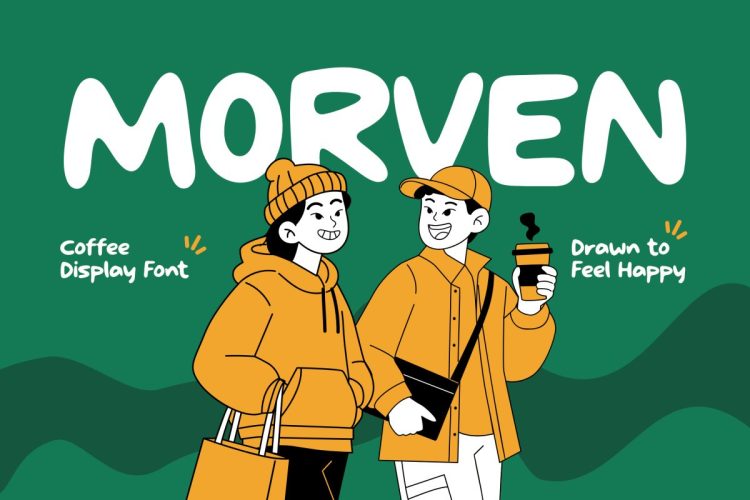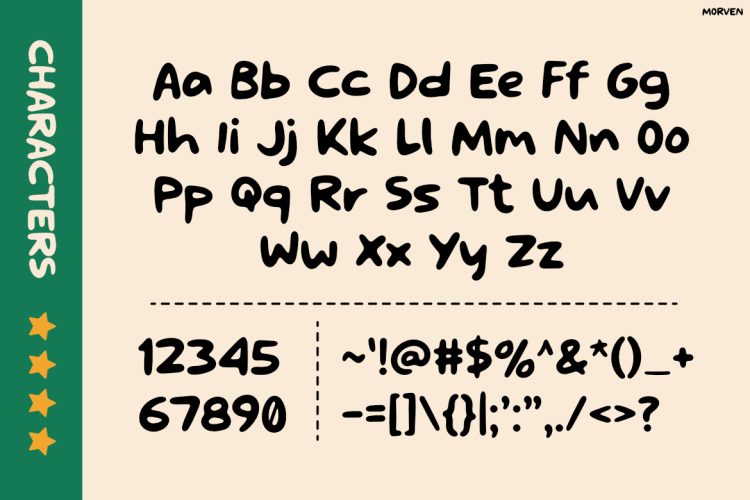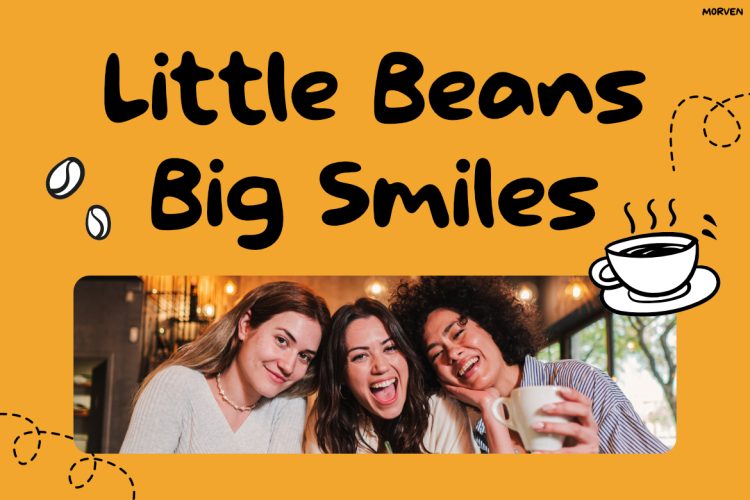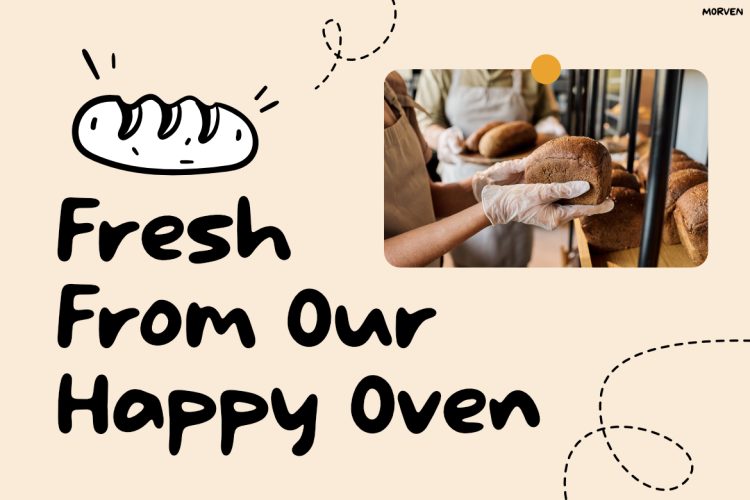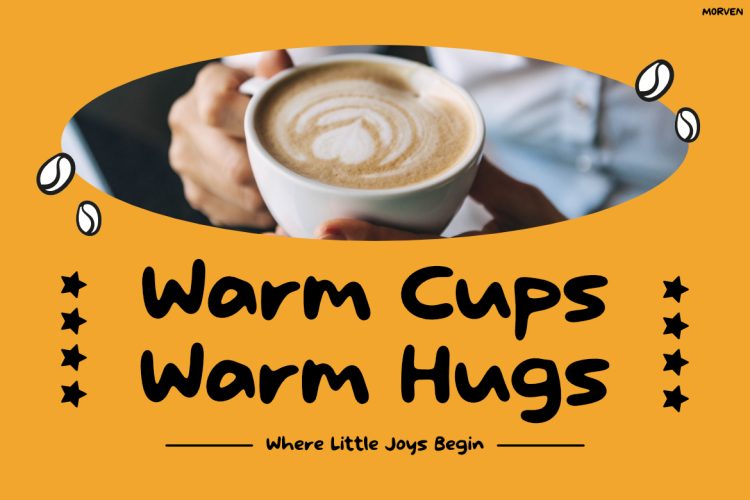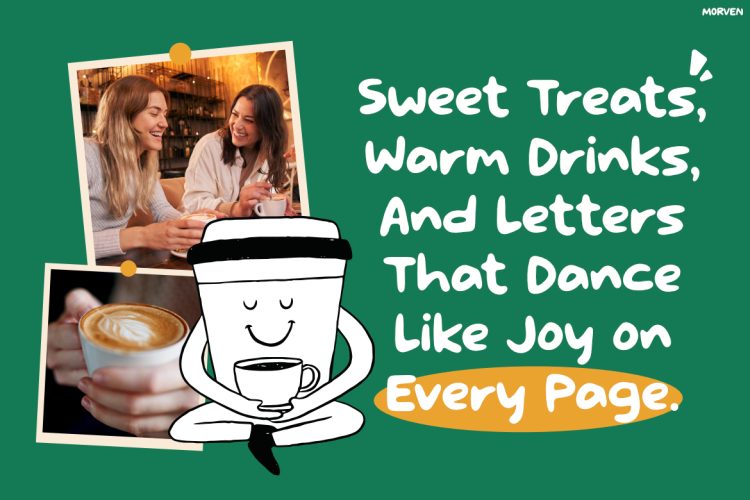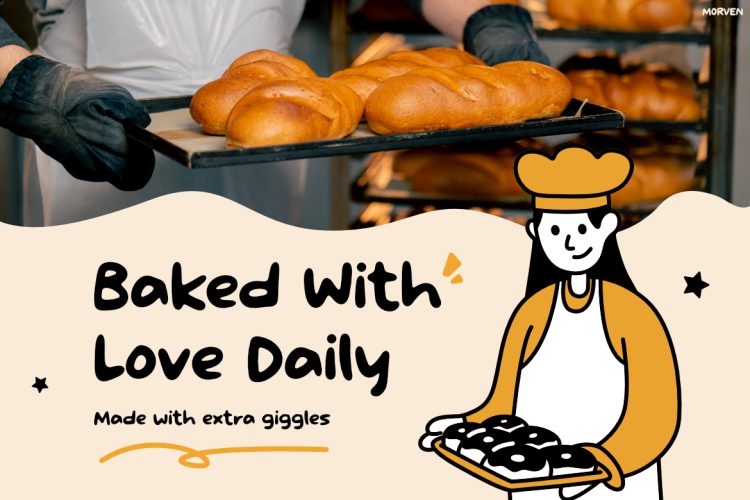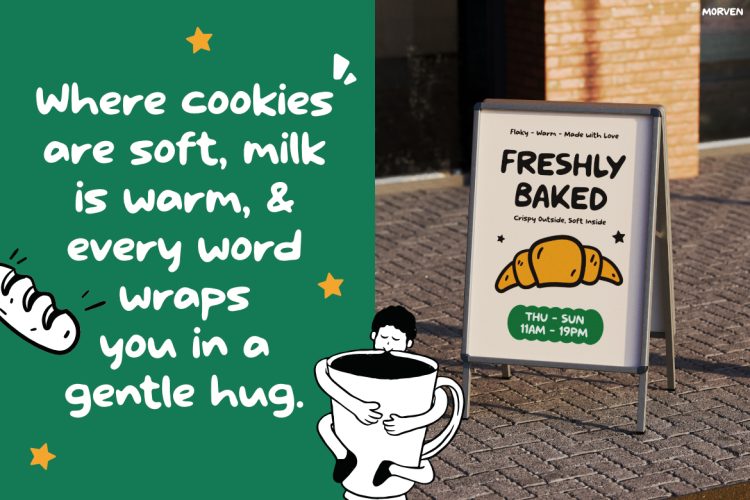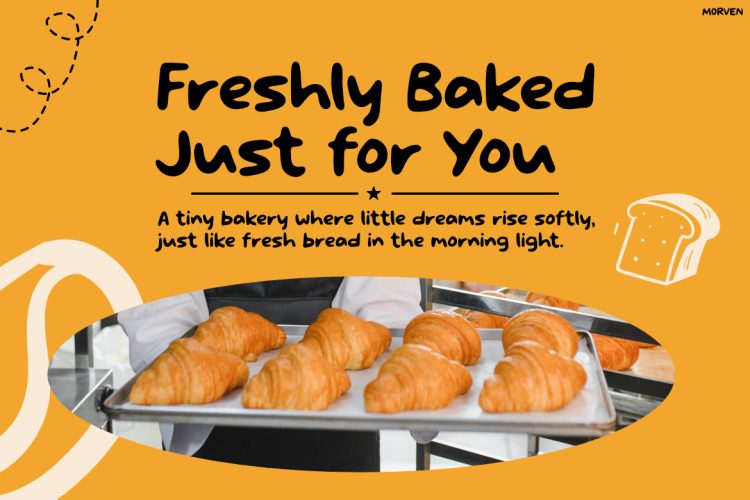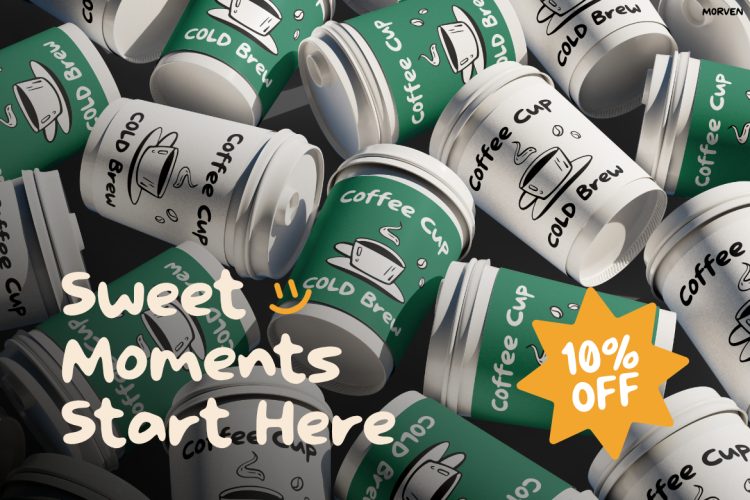
MORVEN โ Cozy Coffee Style Display Font
Instagram Font MORVEN blends warmth and charm through its smooth, hand-drawn letterforms and cozy cafรฉ-inspired aesthetic. The font feels soft yet confident, with rounded edges and a relaxed flow that instantly creates a friendly and inviting mood. Each character is crafted to mimic the comforting vibe of handwritten signage often found in bakeries and coffee shops. As a result, it delivers both personality and readability in one package. Moreover, its balanced stroke weight ensures clarity across different sizes. Because of this, Instagram Font MORVEN works beautifully for headlines, branding, and visual storytelling. It brings a sense of warmth that makes designs feel personal, tasty, and emotionally engaging.
Instagram Font MORVEN is designed to elevate designs with a cozy and artisanal touch. It pairs perfectly with food photography, especially bakery and coffee themes. In addition, the font enhances layouts with a natural and organic feel. Its playful yet calm tone helps create a strong visual identity without being overwhelming. Furthermore, it adapts well to both digital and print media. Whether used on social media posts, menus, or packaging, it keeps the design approachable and stylish.
Suitable For
This font is ideal for cafรฉ owners, bakery brands, and food content creators. It also suits graphic designers working on lifestyle branding or Instagram visuals. In addition, small business owners can use it for product packaging and promotions. Event organizers may apply it to food festivals or cozy-themed events. Because of its friendly and warm style, it connects easily with audiences who love comfort, food, and aesthetic visuals.